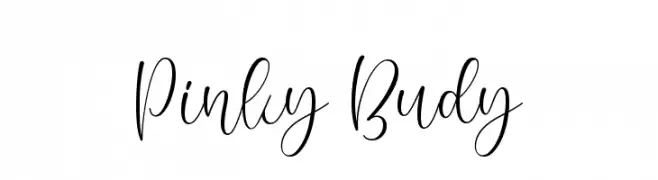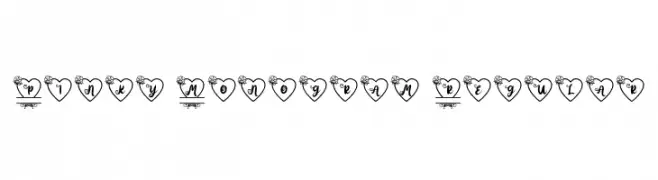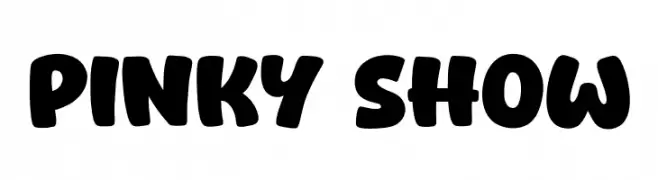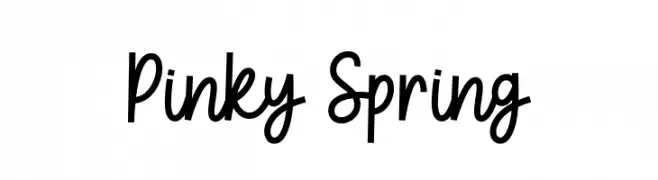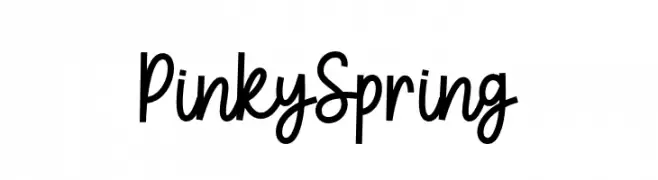
A playful and elegant script font with fluid, cursive strokes.
A playful, handwritten font with a whimsical and casual style.
A decorative font with letters in heart shapes, featuring floral accents.
A playful, handwritten font with a bold and casual style.
A playful, bold font with rounded characters and a whimsical style.
A playful, handwritten script font with connected letters and a lively style.
A playful, handwritten script font with a casual and lively style.
A playful and whimsical font with bold, curvy letterforms.
A playful, heart-accented display font with a whimsical, hand-drawn style.
A lively, flowing script font with a playful, elegant style.